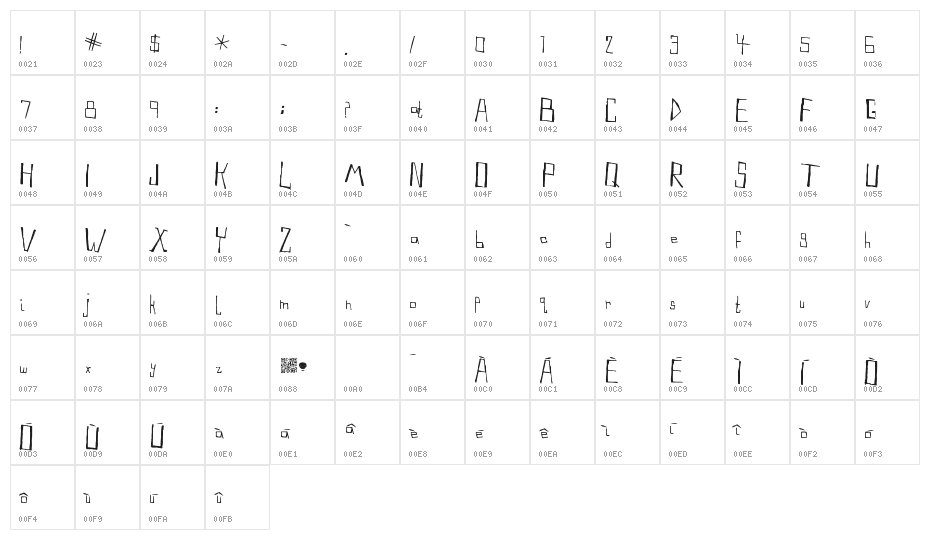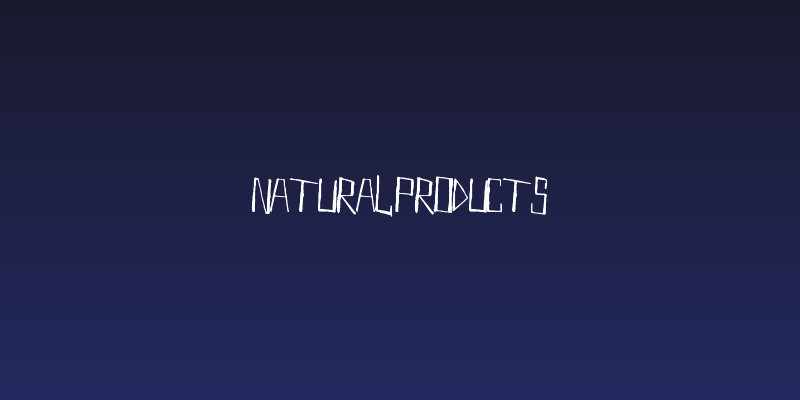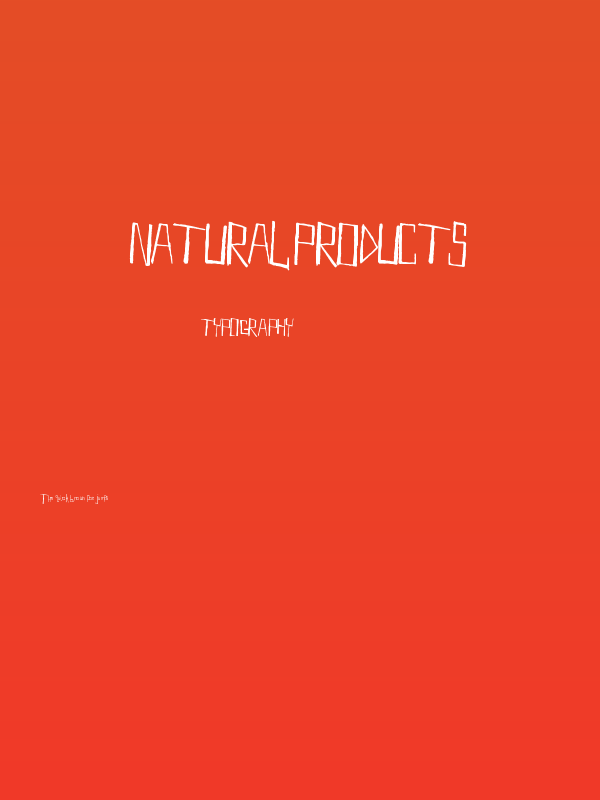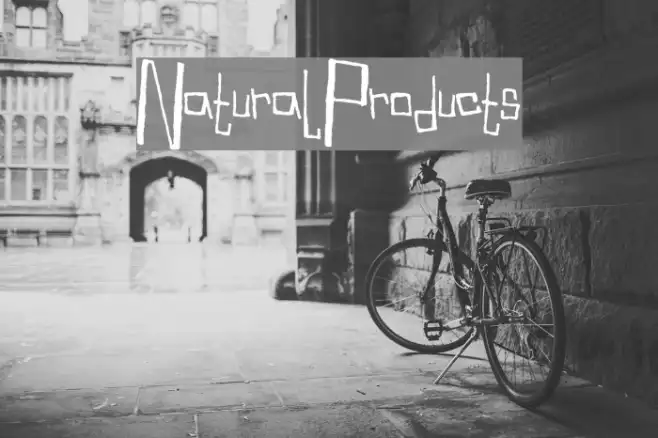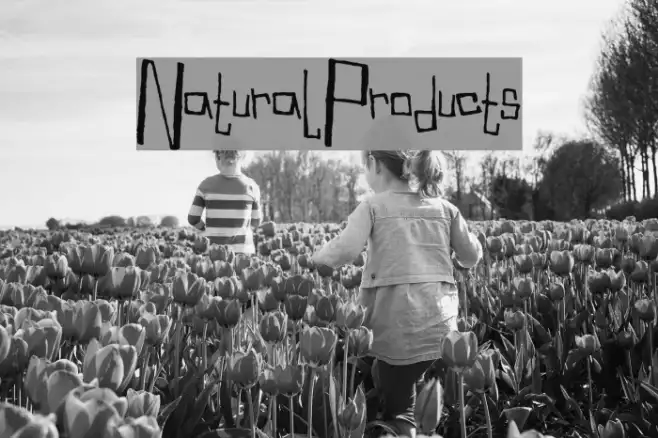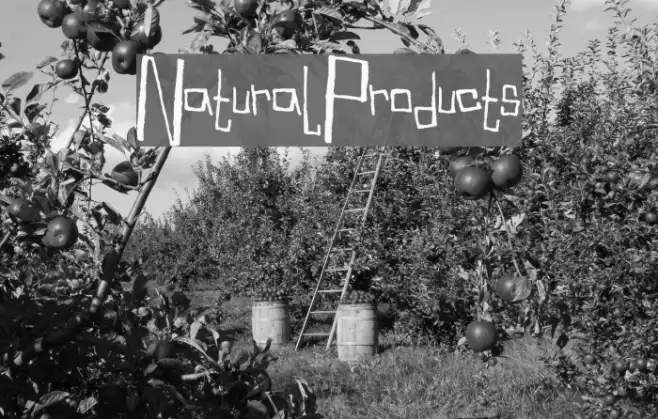
NaturalProducts Font
NaturalProducts Description
This font features a unique, hand-drawn style with irregular and angular shapes, giving it a quirky and artistic appearance. The letters are unevenly weighted, with some strokes thicker than others, creating a dynamic and lively look. The uppercase and lowercase letters maintain a consistent style, while the numbers and special characters add to the playful aesthetic. The overall design is reminiscent of a doodle or sketch, making it ideal for creative projects that require a personal touch.
| Proposed Projects | Ideal for creative projects such as posters, album covers, children's book illustrations, or any design that benefits from a playful and artistic touch. |